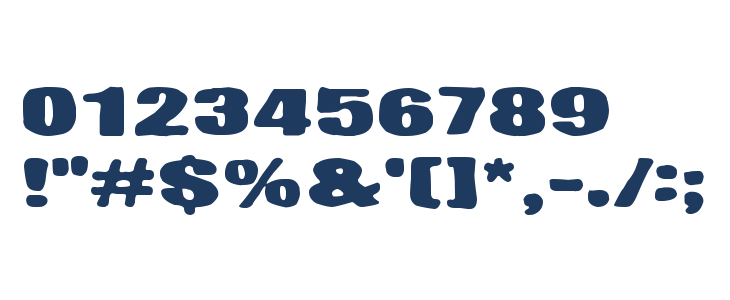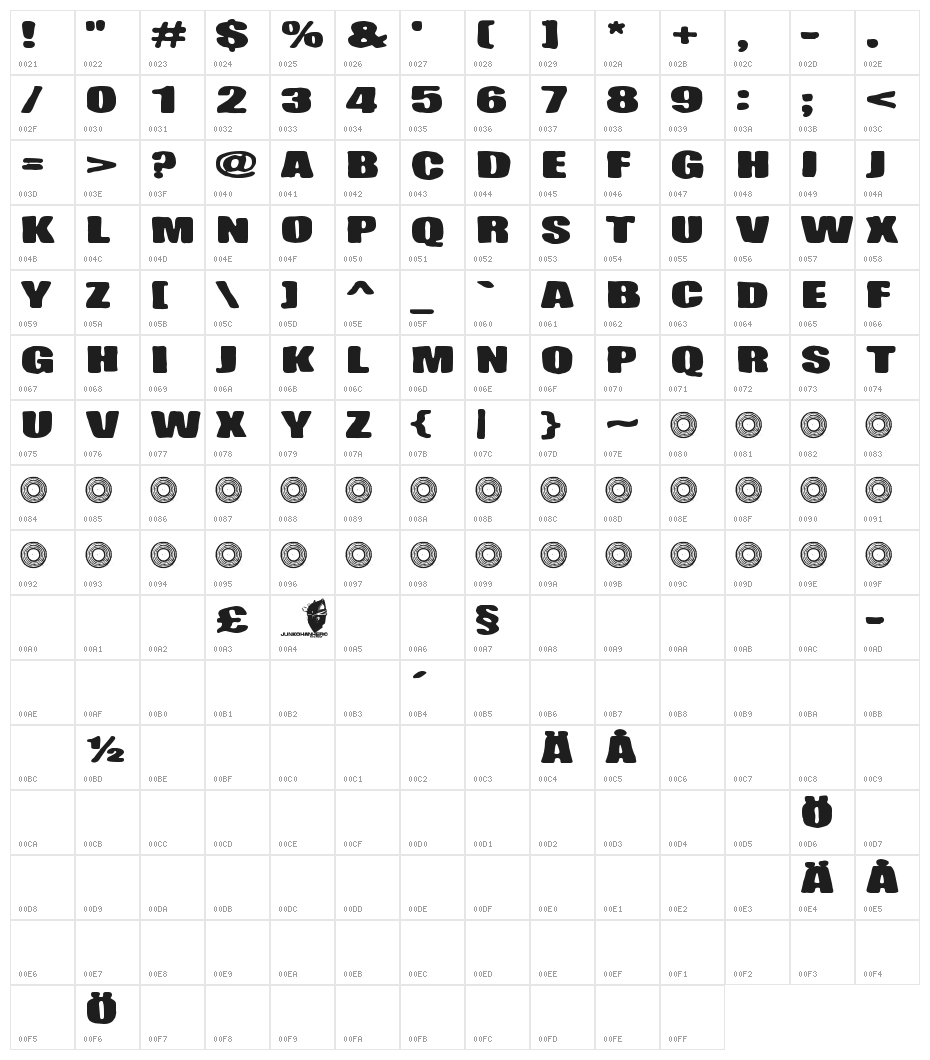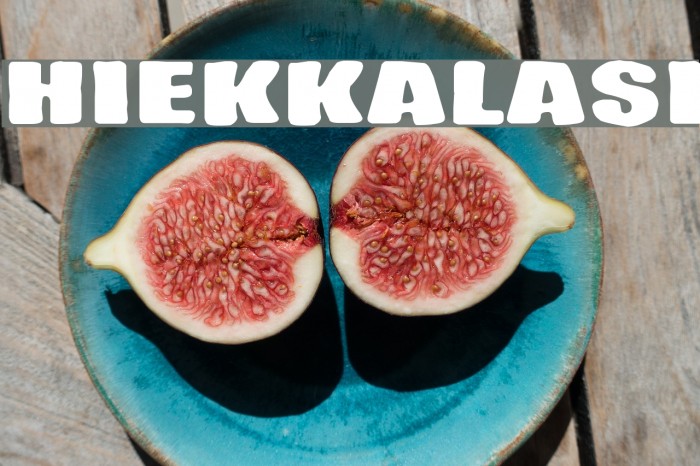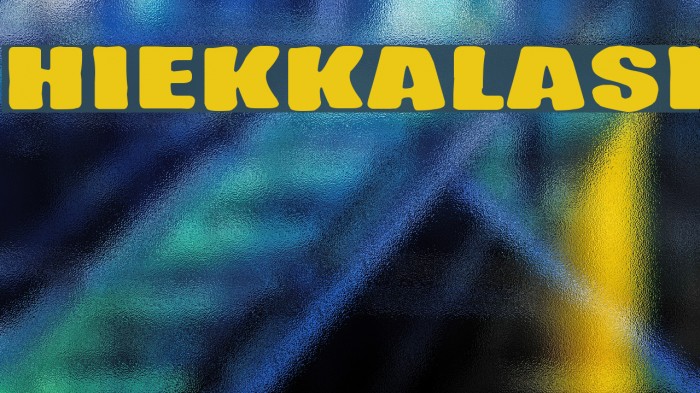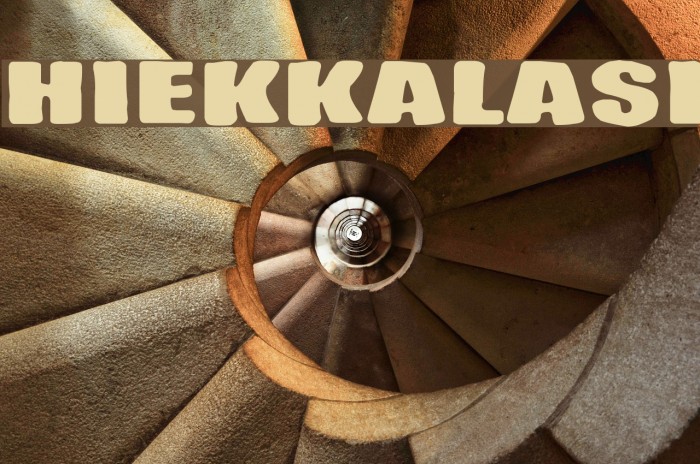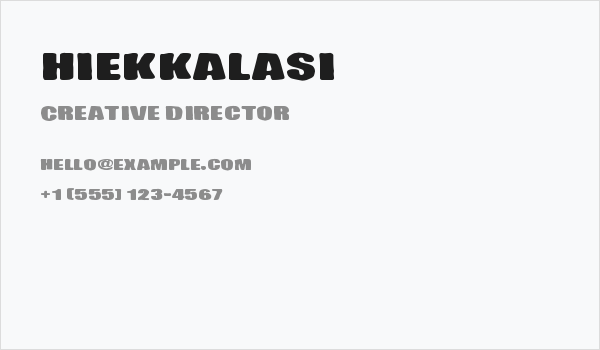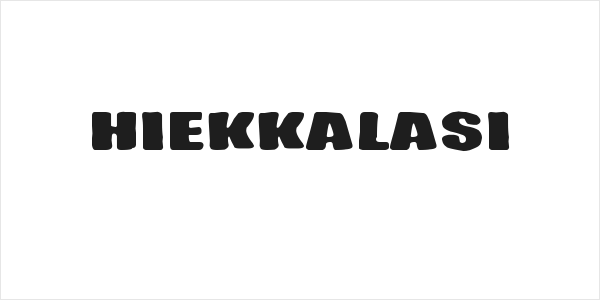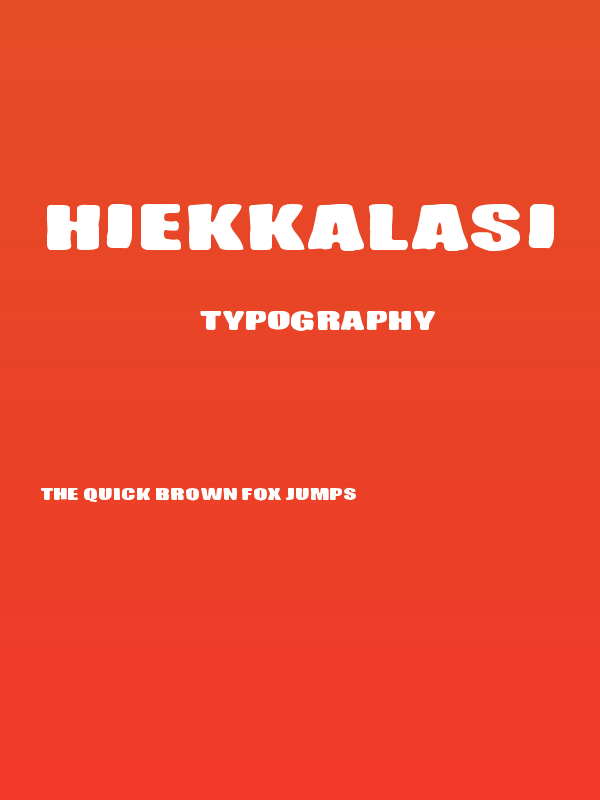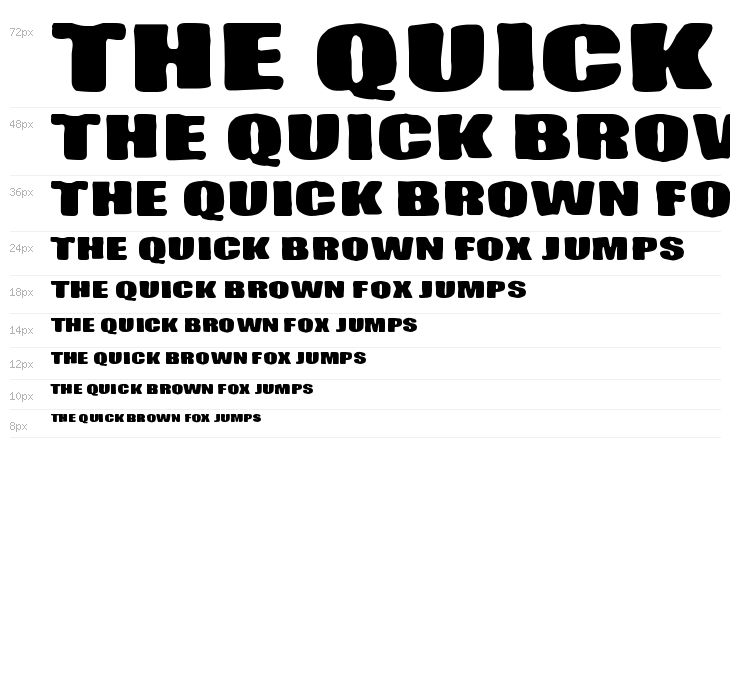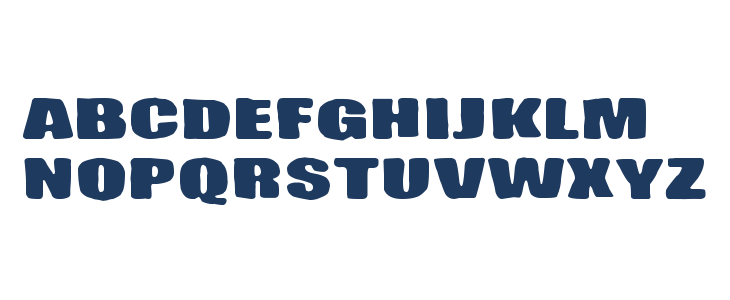
Hiekkalasi Font
Hiekkalasi Description
This font features bold, rounded characters with a playful and robust appearance. The letters are thick and have a slightly irregular shape, giving them a hand-drawn feel. The uppercase and lowercase letters maintain a consistent weight, while the numbers and special characters are designed to match the overall style. The font's boldness and unique character shapes make it stand out, making it suitable for eye-catching designs. Its rounded edges soften the overall look, adding a friendly and approachable vibe.
| Overall Style | Playful, Decorative |
| Proposed Projects | Ideal for posters, logos, children's books, and playful branding projects. |